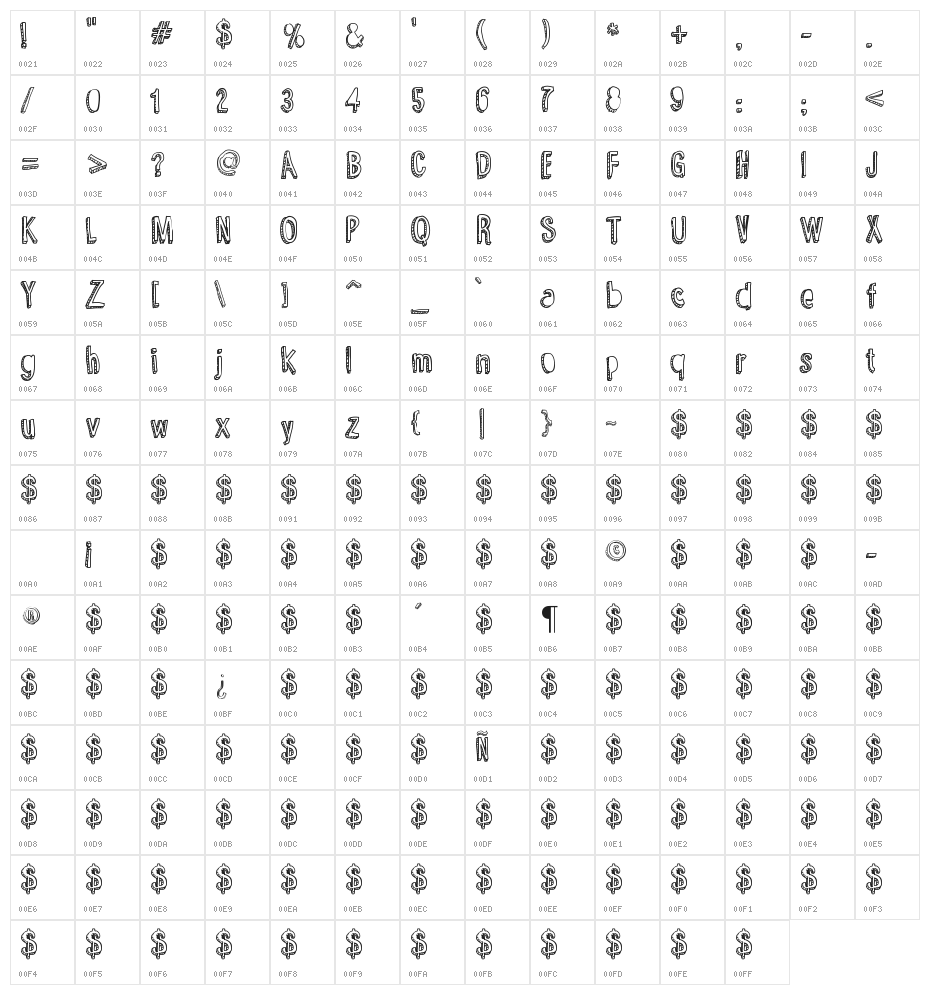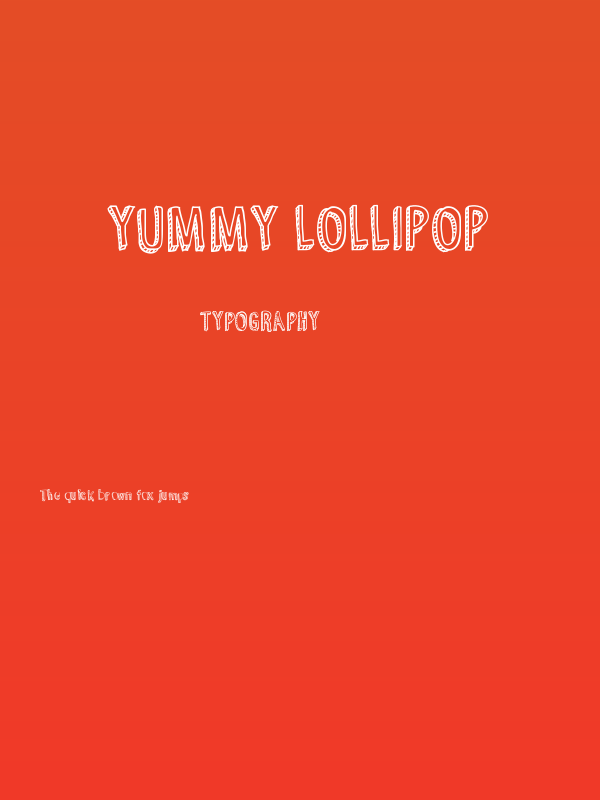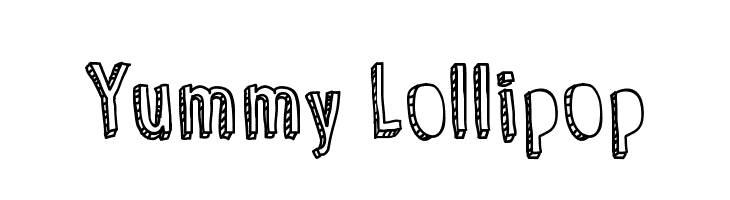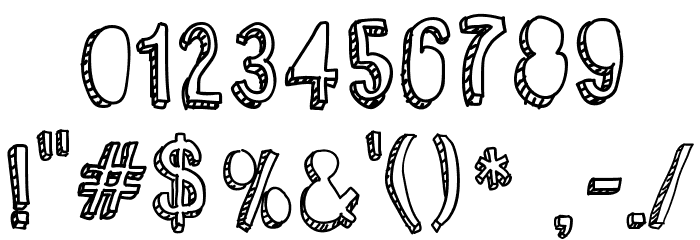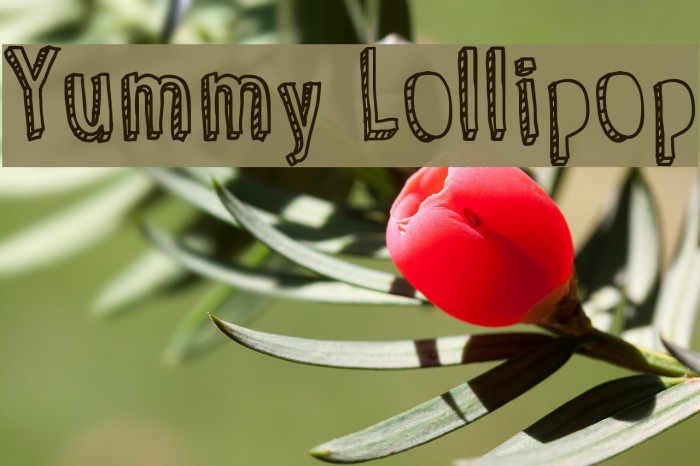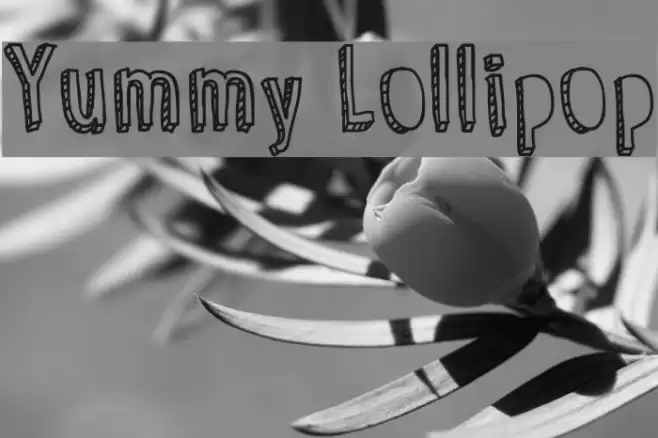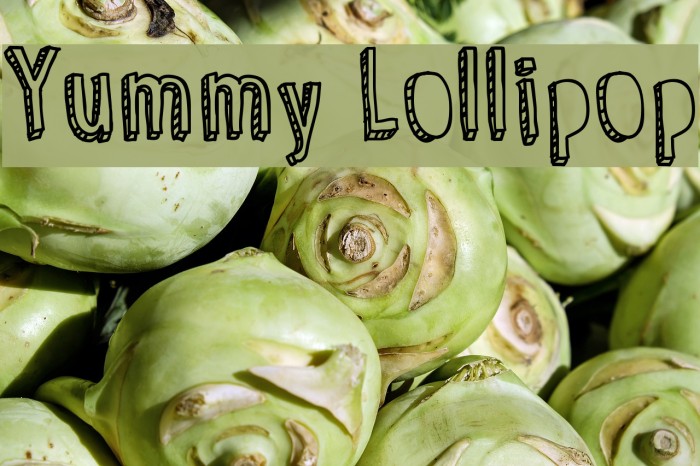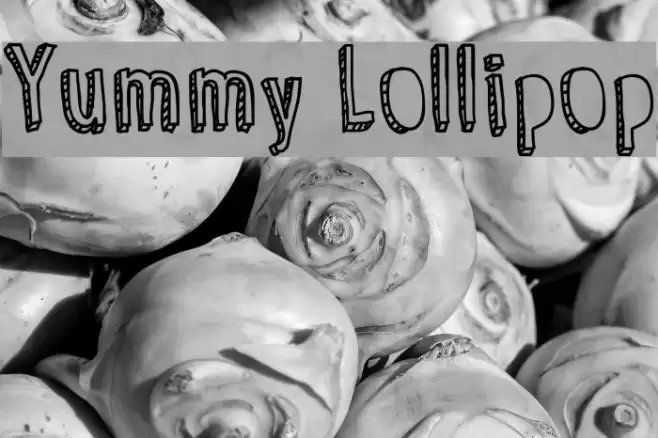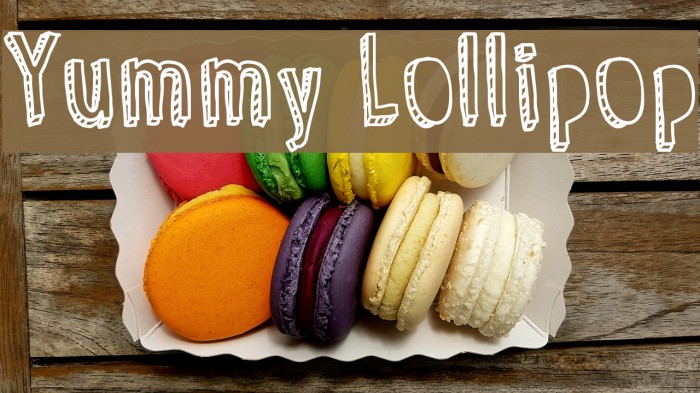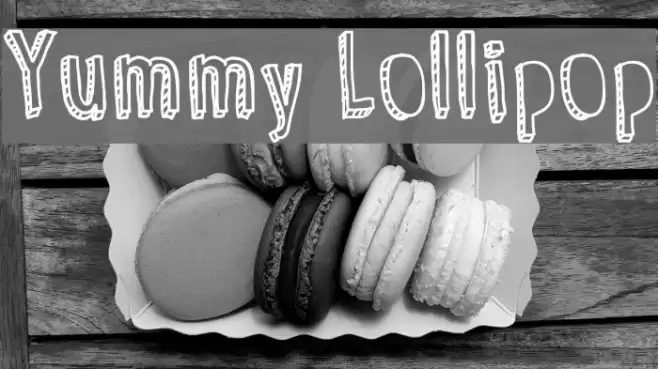
Yummy Lollipop Font
Yummy Lollipop Description
This playful and whimsical font features a hand-drawn, doodle-like style with a three-dimensional effect. Each character is outlined with a bold, uneven stroke, giving it a lively and energetic appearance. The letters are filled with a pattern of dots and lines, adding to the fun and quirky nature of the design. The font maintains a consistent height across both uppercase and lowercase letters, while the numbers and special characters share the same playful characteristics. This font is perfect for projects that require a lighthearted and informal touch.
| Proposed Projects | Ideal for children's books, comic strips, playful branding, party invitations, and creative posters. |